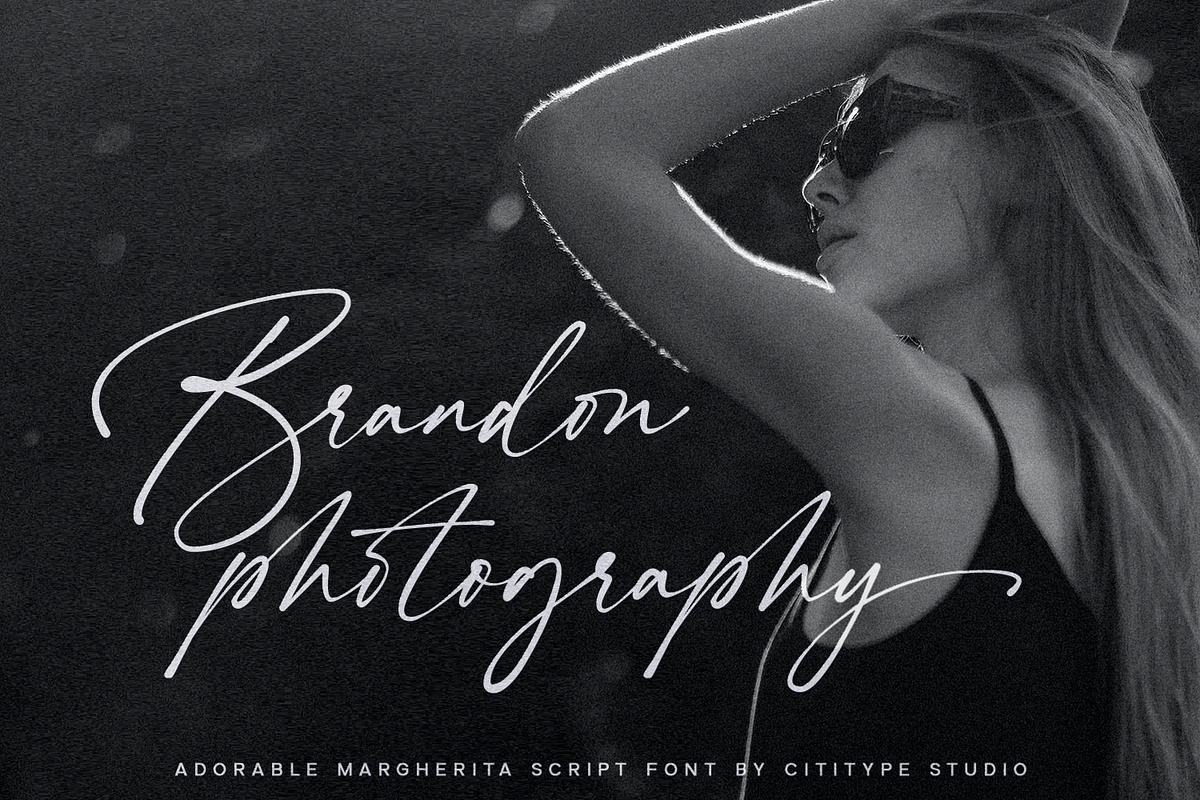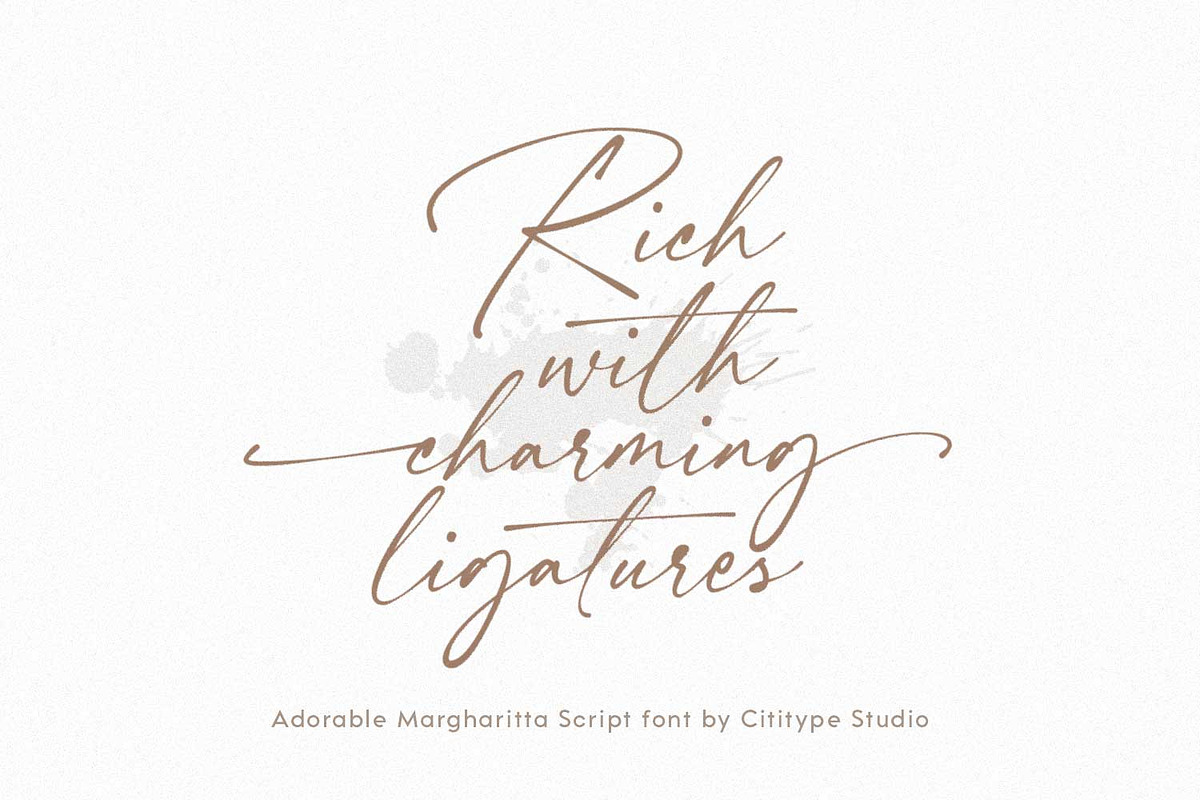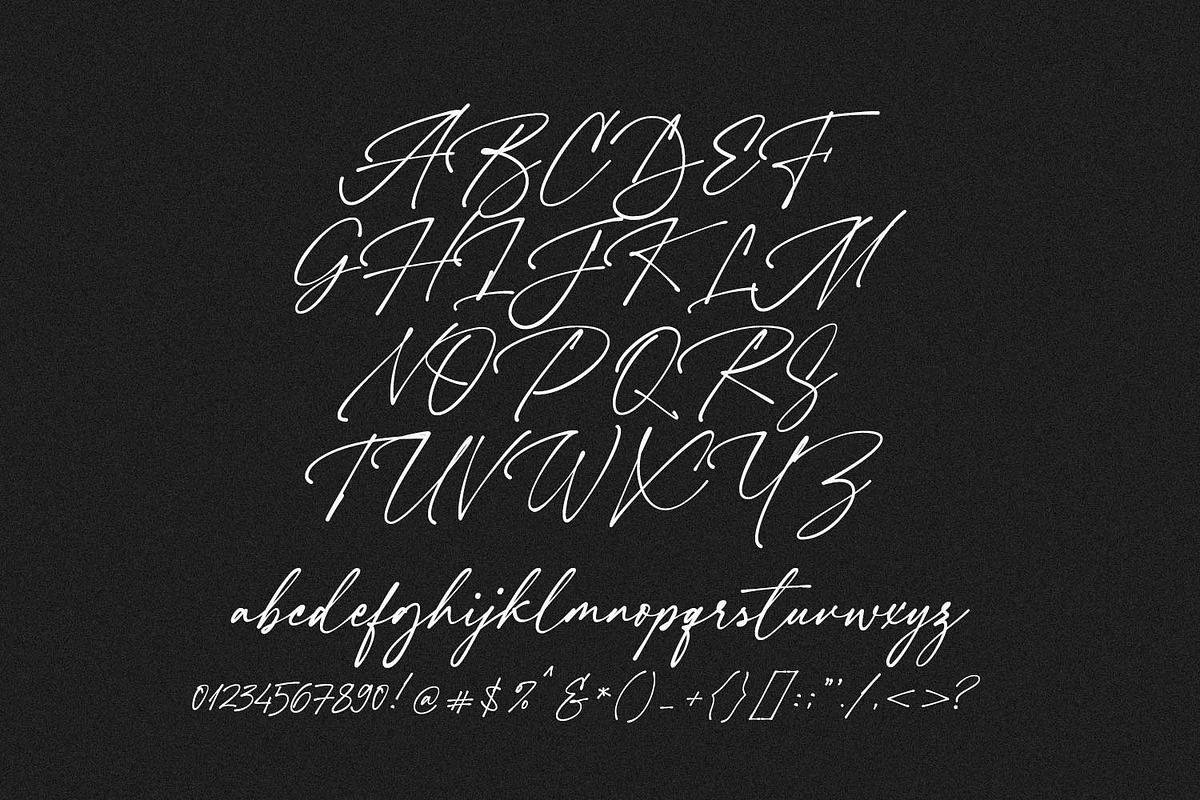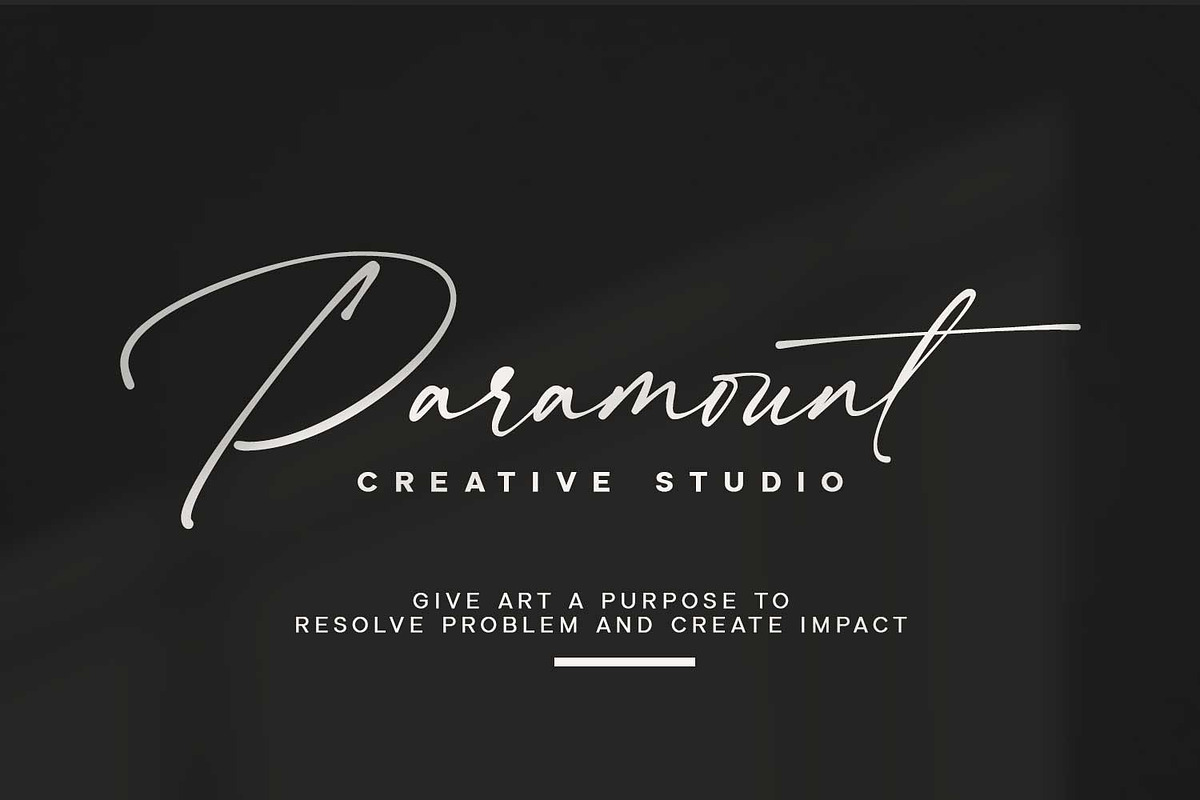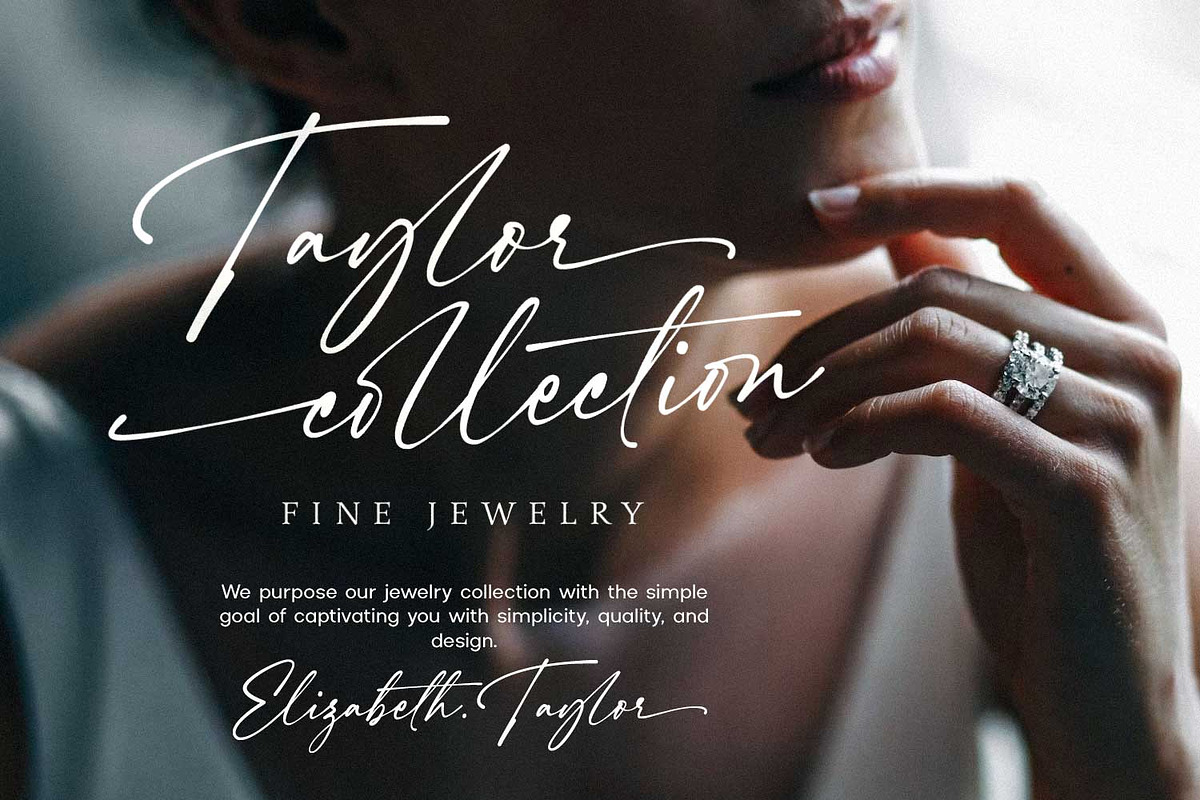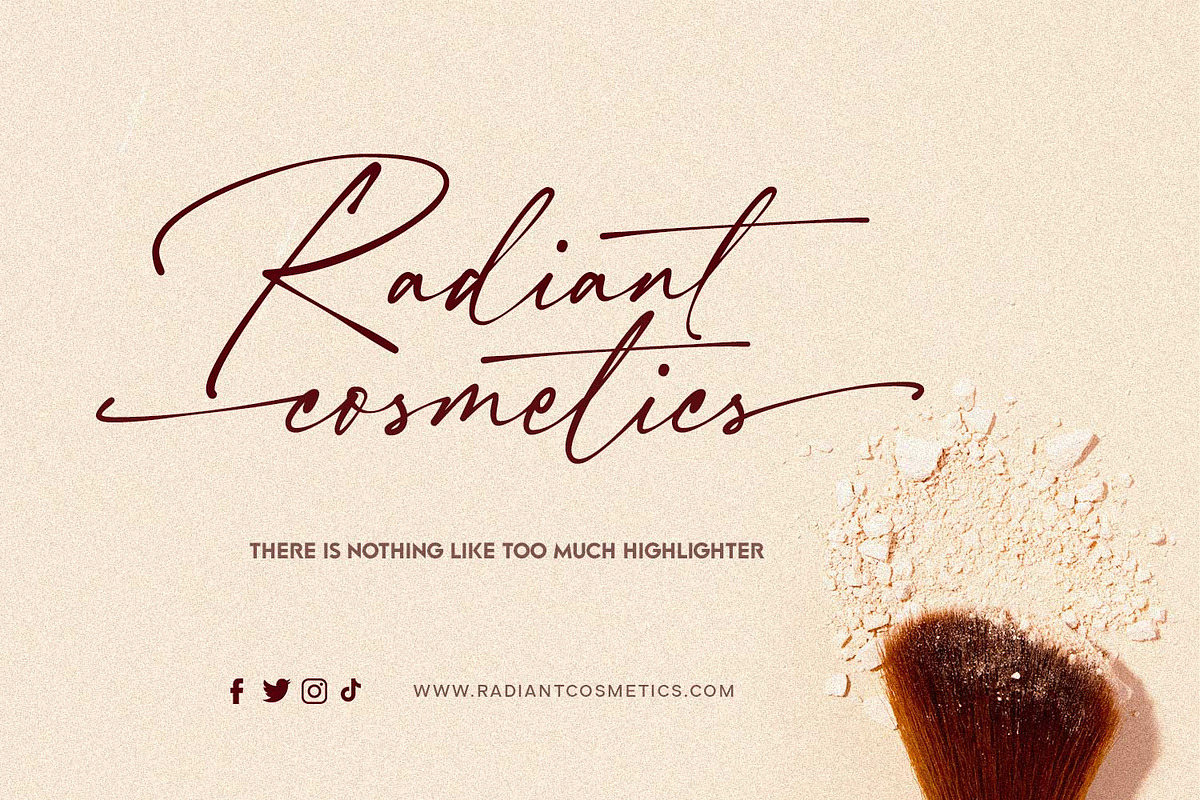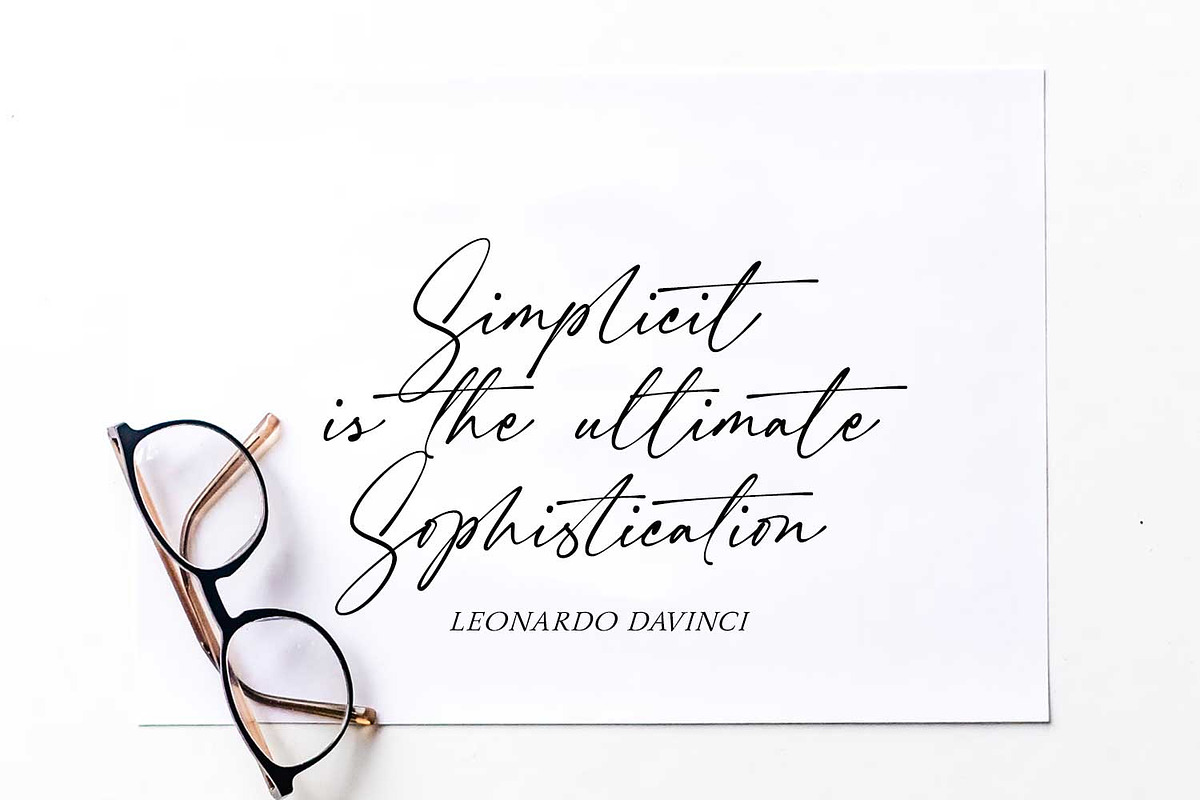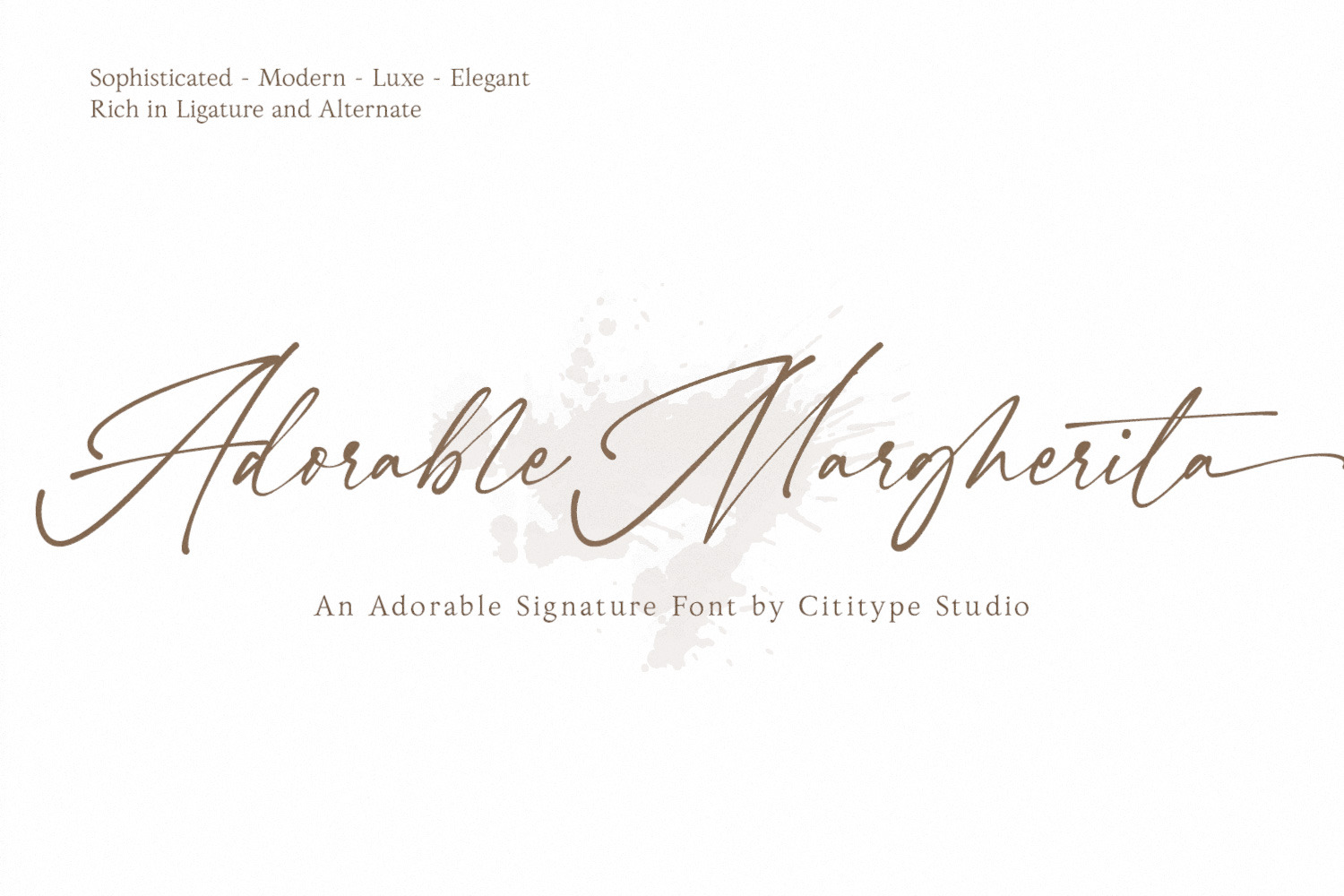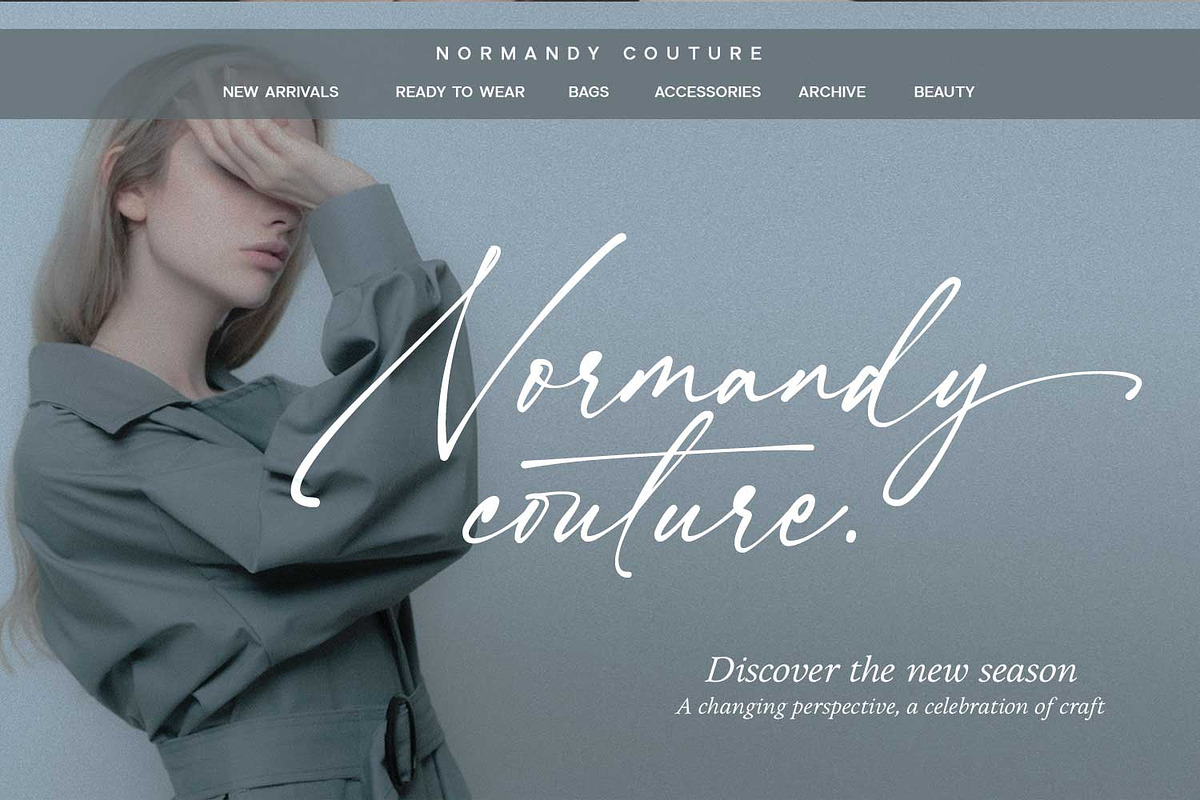
Adorable Margherita - Beautiful Font
Introducing Adorable Margherita, the perfect combination of organic and chic handwritten font. Ideal for branding, signature, wedding invitations, promotions, product packaging, and more, this font is modern, luxe, simple, and authentic. With a complete set of lowercase and uppercase letters, numerals and punctuation, multilingual symbols, lowercase beginning and ending swashes, and a plethora of charming ligatures, Adorable Margherita has everything you need to take your project to the next level.